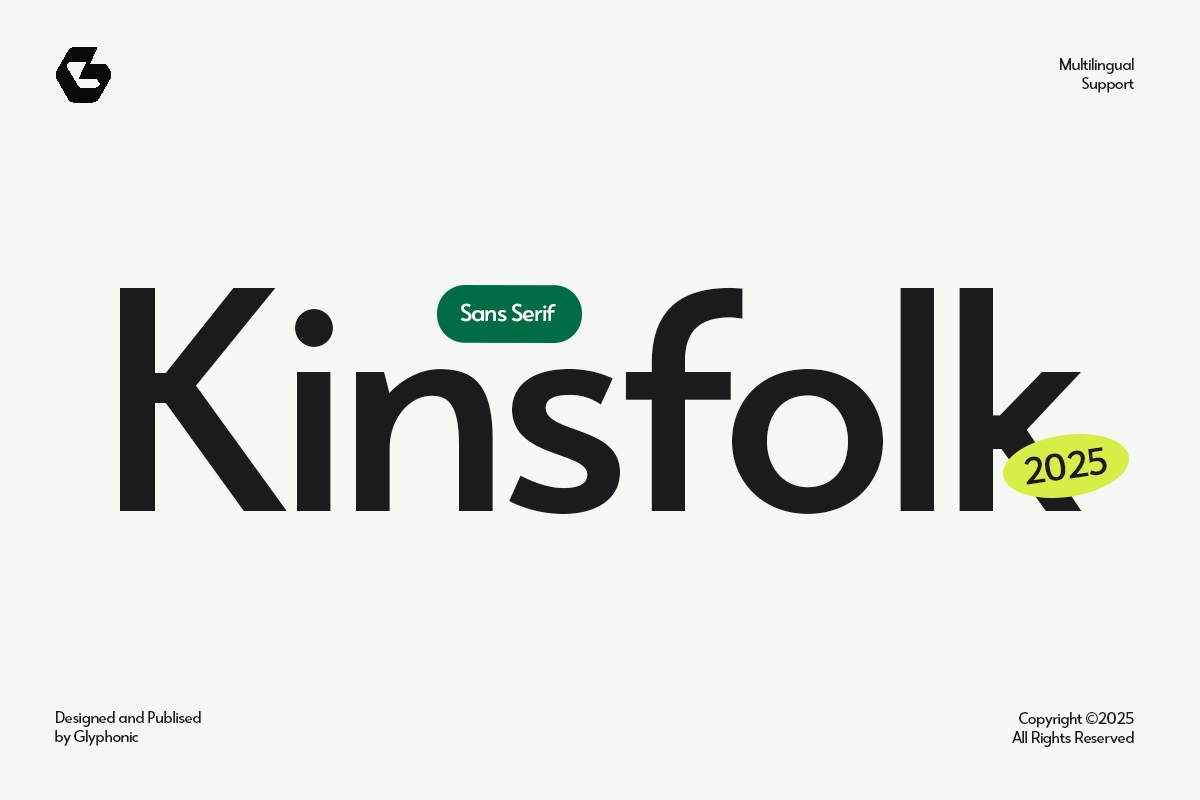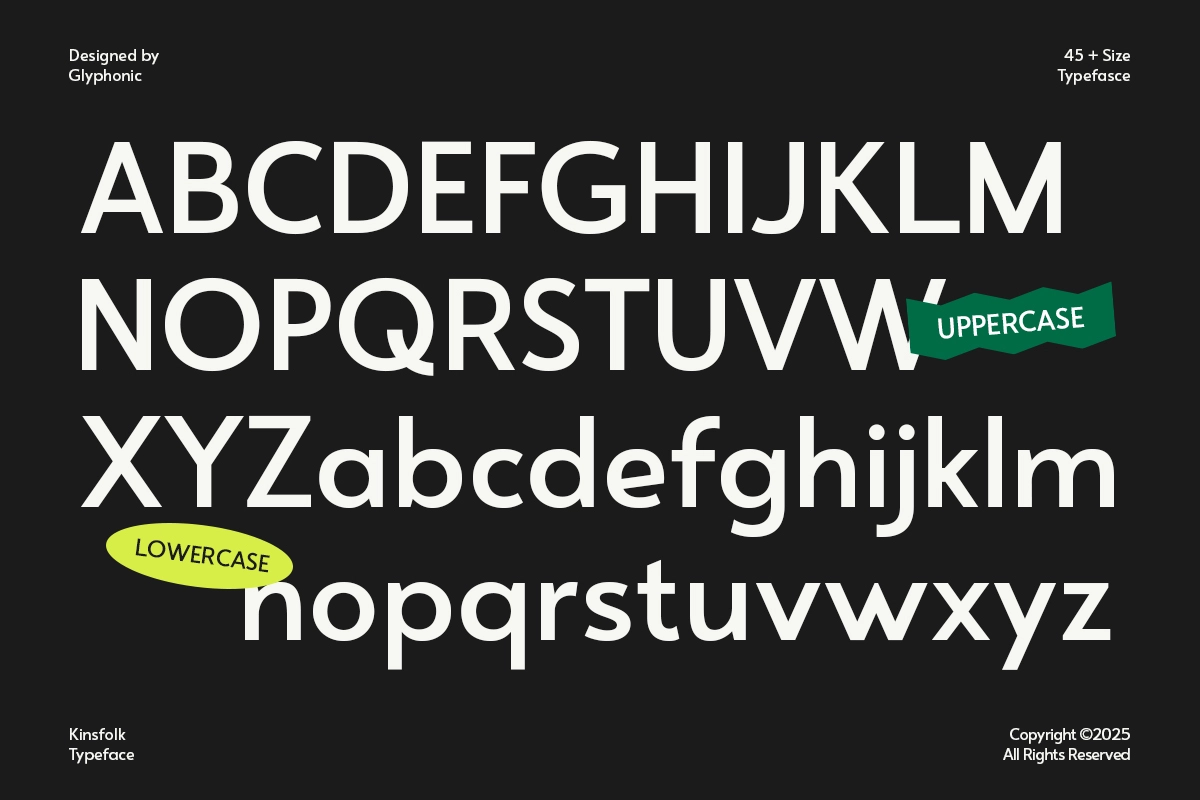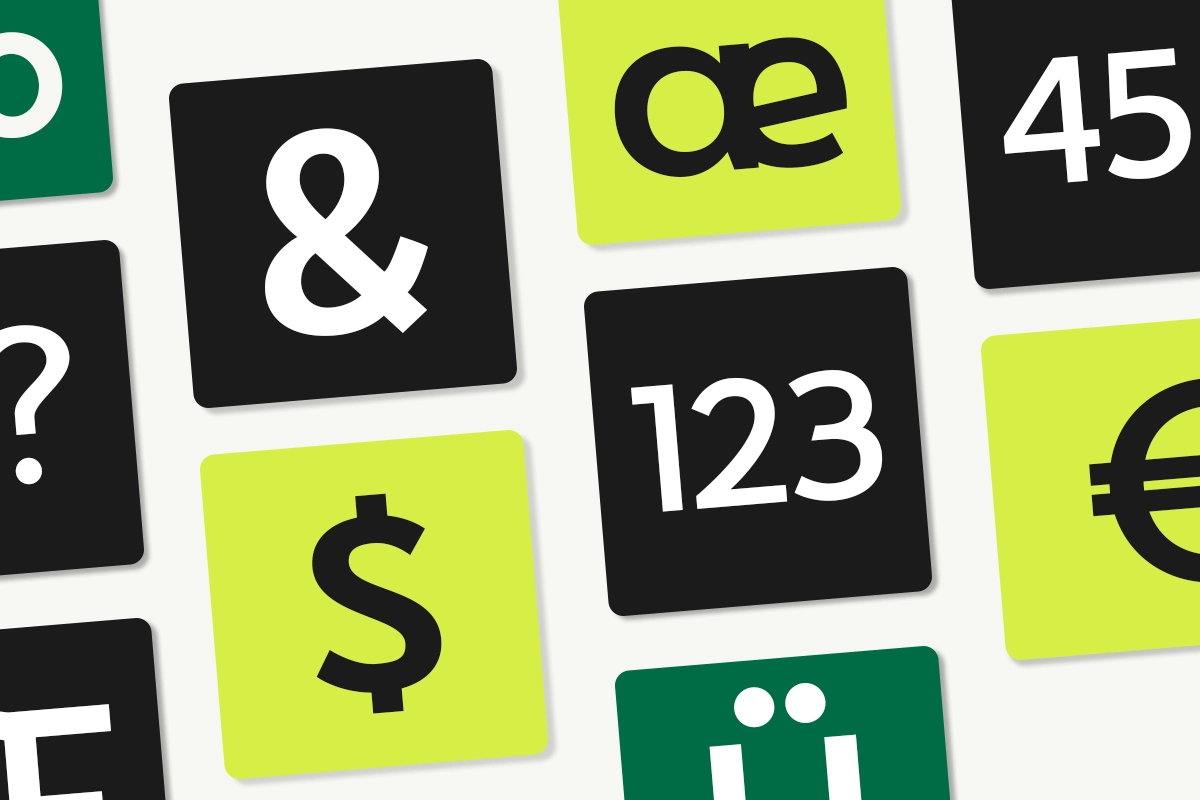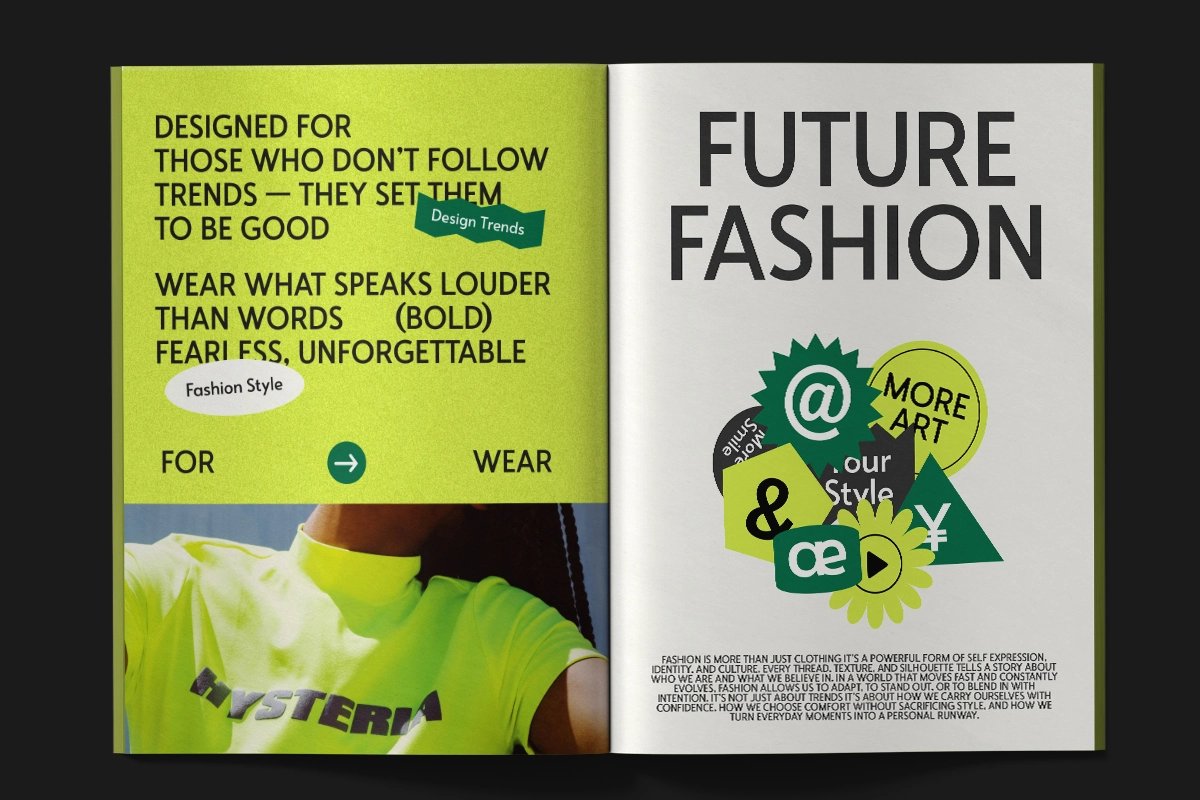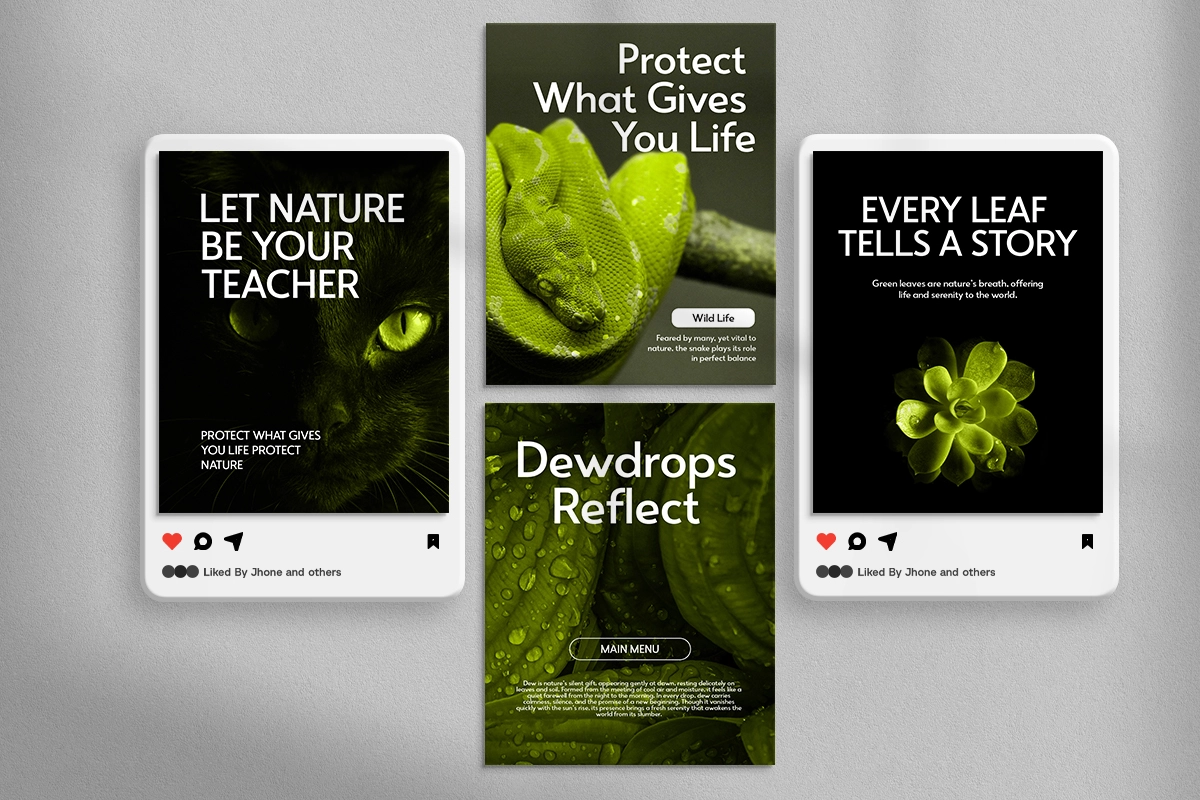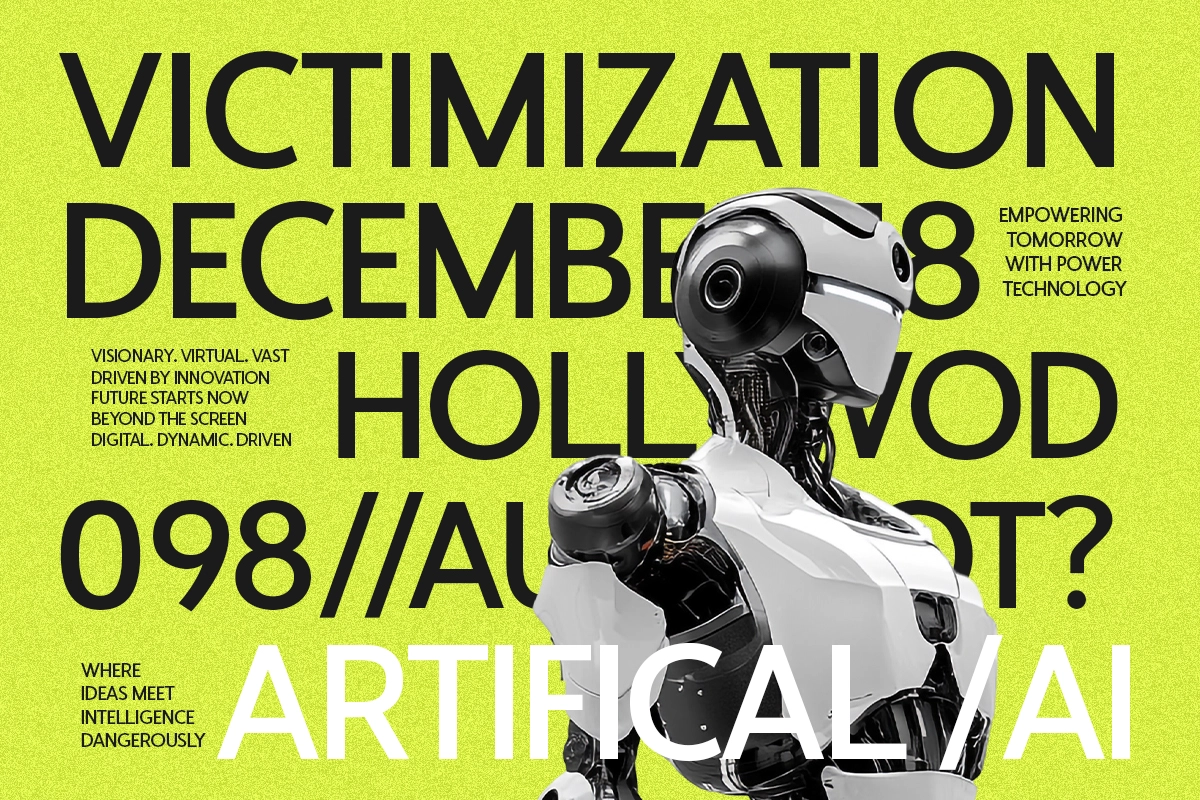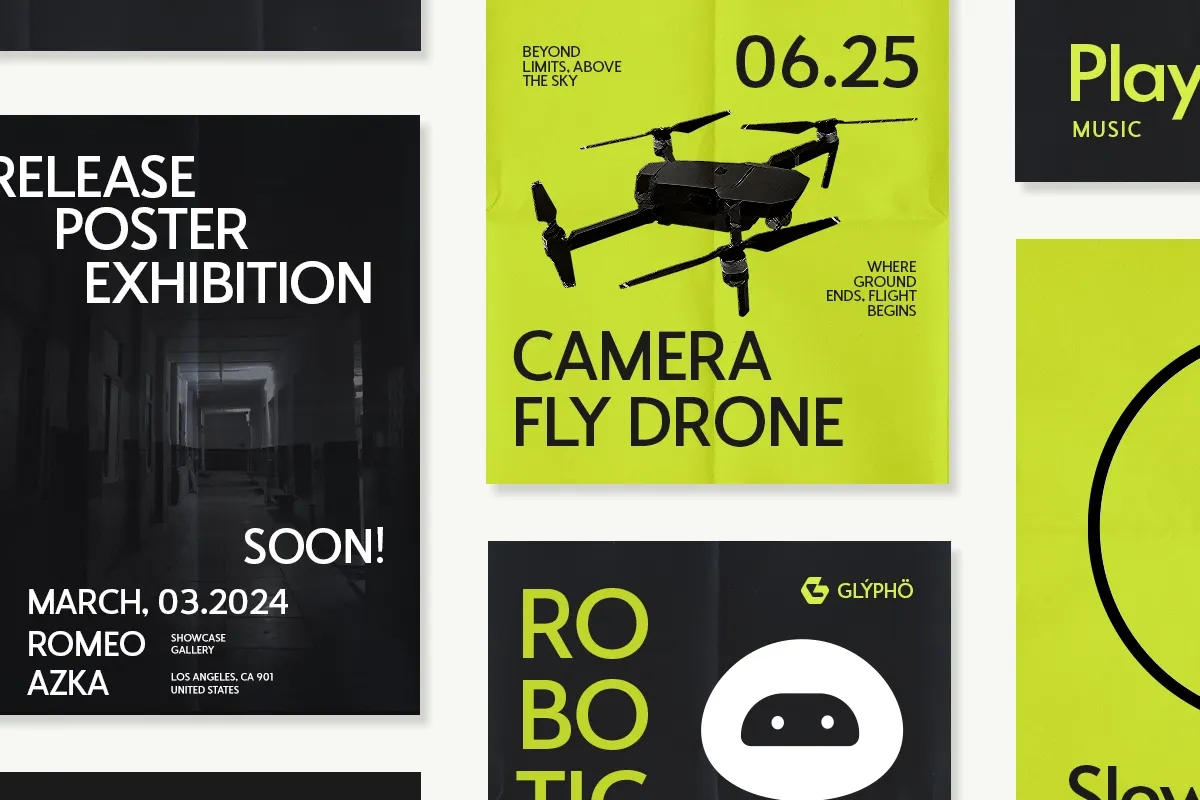
GC Kinsfolk - Modern Sans Typeface
Kinsfolk is a Modern Sans Typeface that blends modern elegance with future style. Perfectly suited for headlines, branding, logos, packaging, editorial layouts, it’s crafted to leave a lasting impression. With its high contrast strokes, modern sans, and future style, Kinsfolk brings personality and sophistication to any design.
Whether you're designing for fashion, lifestyle, or artistic visuals, this typeface offers versatility and refined style.